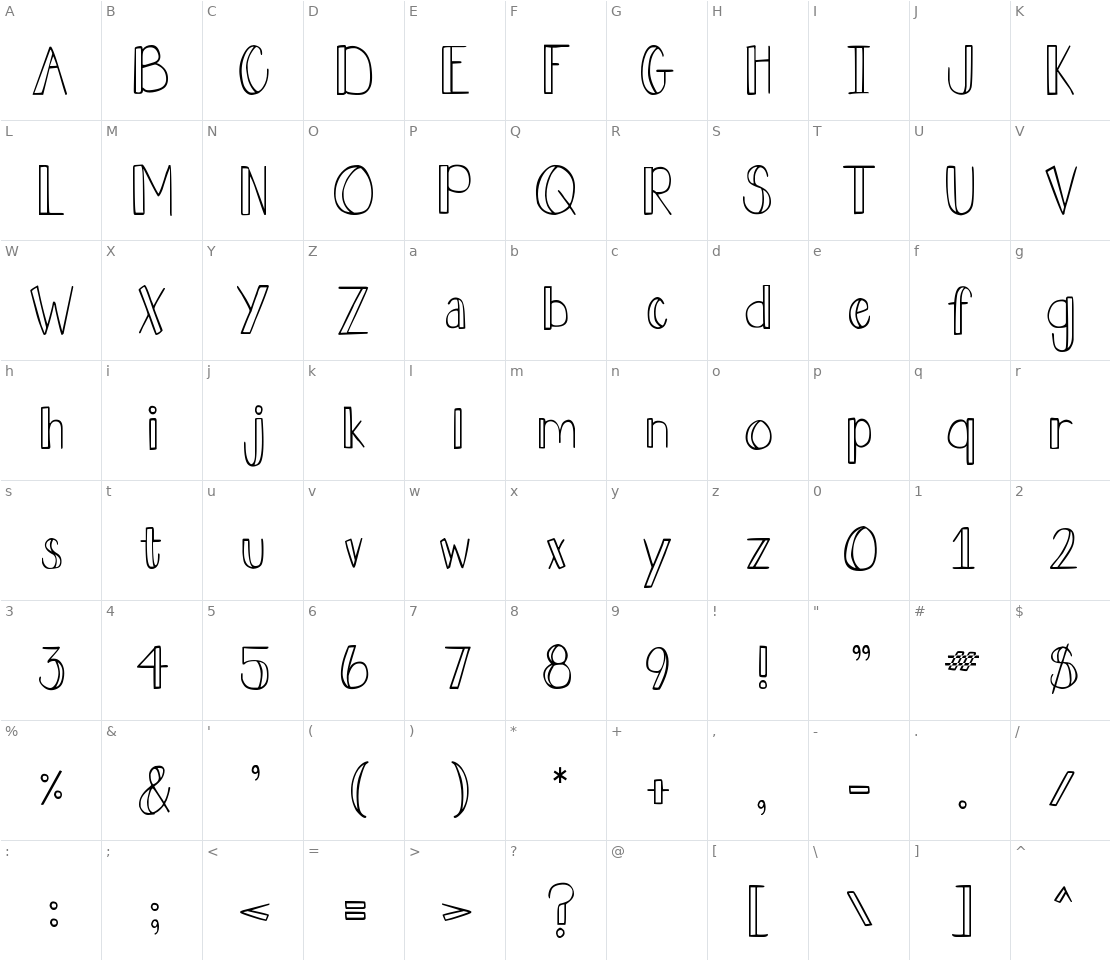
DJB Holly Jolly
DJB Holly Jolly is a tall, condensed outline face from DJB Fonts with a playful, hand-drawn quality that leans into holiday and Christmas themes without being overtly literal. The thin, open letterforms feel whimsical and light, giving headlines and seasonal graphics a festive personality that reads more charming than cheesy. Best kept to larger sizes where the outline detail stays crisp.